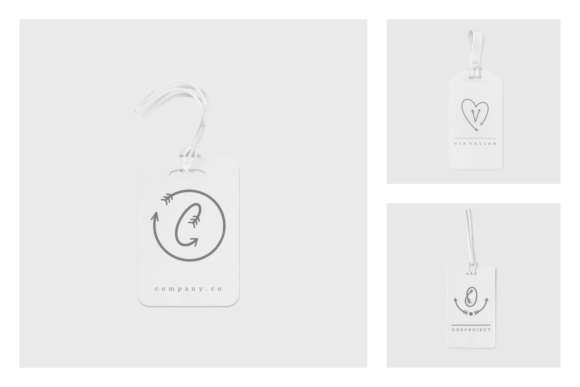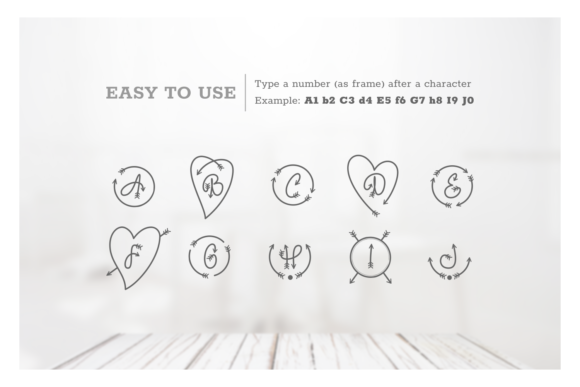
Introduction to Monorow Font Font
Fonts play a crucial role in design, and the Monorow Font font is a typeface that brings both character and versatility to any project. Whether you’re working on a branding project, a website, or a print design, the Monorow Font font offers a unique style that can elevate your work.
Monorow is a minimalist arrow monogram font.
Within seconds you can create stunning arrow decorated monogram frames by simply combining a character with a number, e g.
Key Features of Monorow Font Font
Why Choose Monorow Font Font?
The Monorow Font font is more than just a typeface – it’s a design tool that helps you communicate your message with style and clarity. Its unique character set and versatile design make it suitable for a wide range of applications, from elegant invitations to bold headlines.
With its carefully crafted letterforms and balanced proportions, the Monorow Font font ensures readability and visual appeal across all mediums.
What makes Monorow Font font special?
The Monorow Font font stands out with its unique design, exceptional readability, and versatility across various design applications.